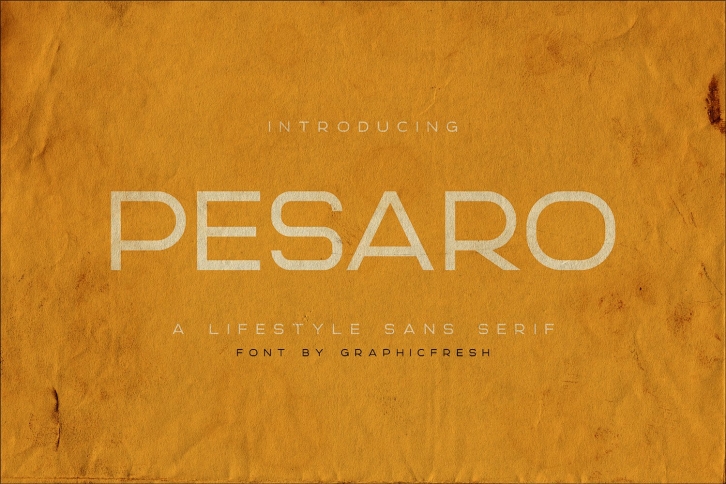
Pesaro | A Lifestyle Sans Serif
Pasero Sans Serif - A clean and minimalist and awesome character! Withtwo styles (Regular and Italic version), it's perfect for magazine layouts, invitations, headers, or even large-scale artwork.